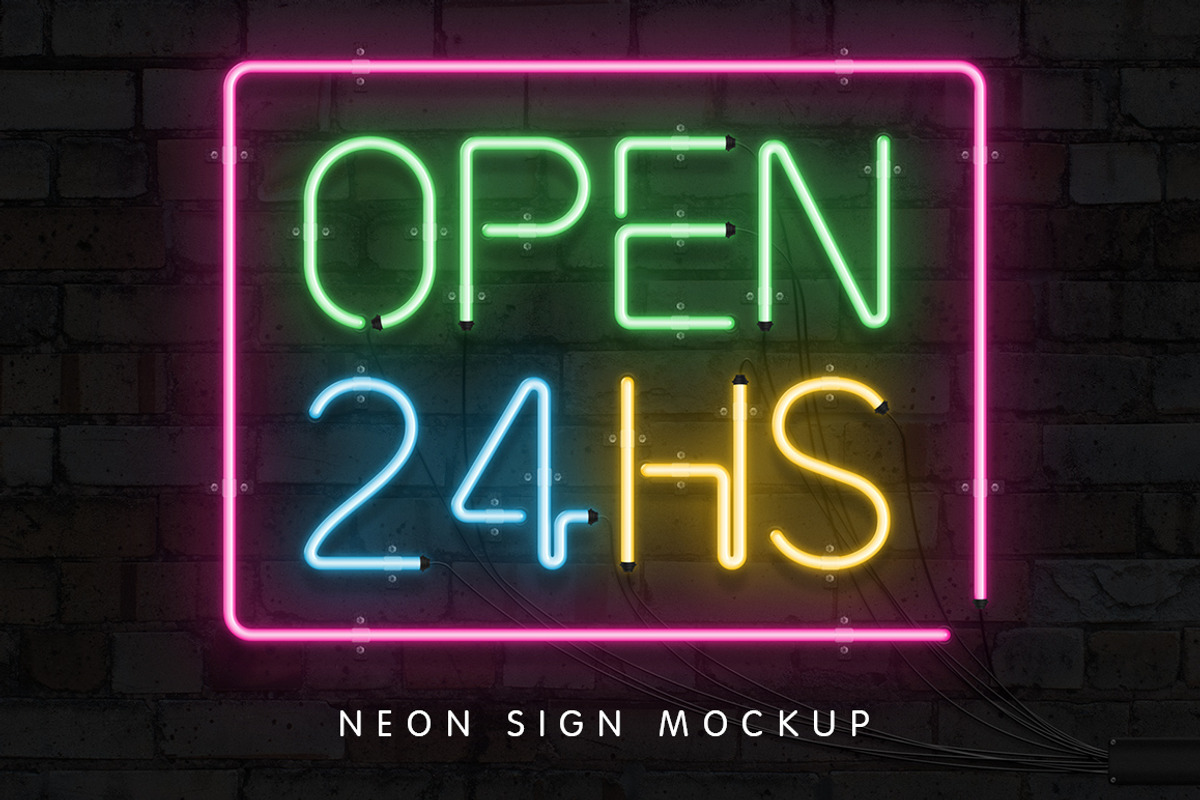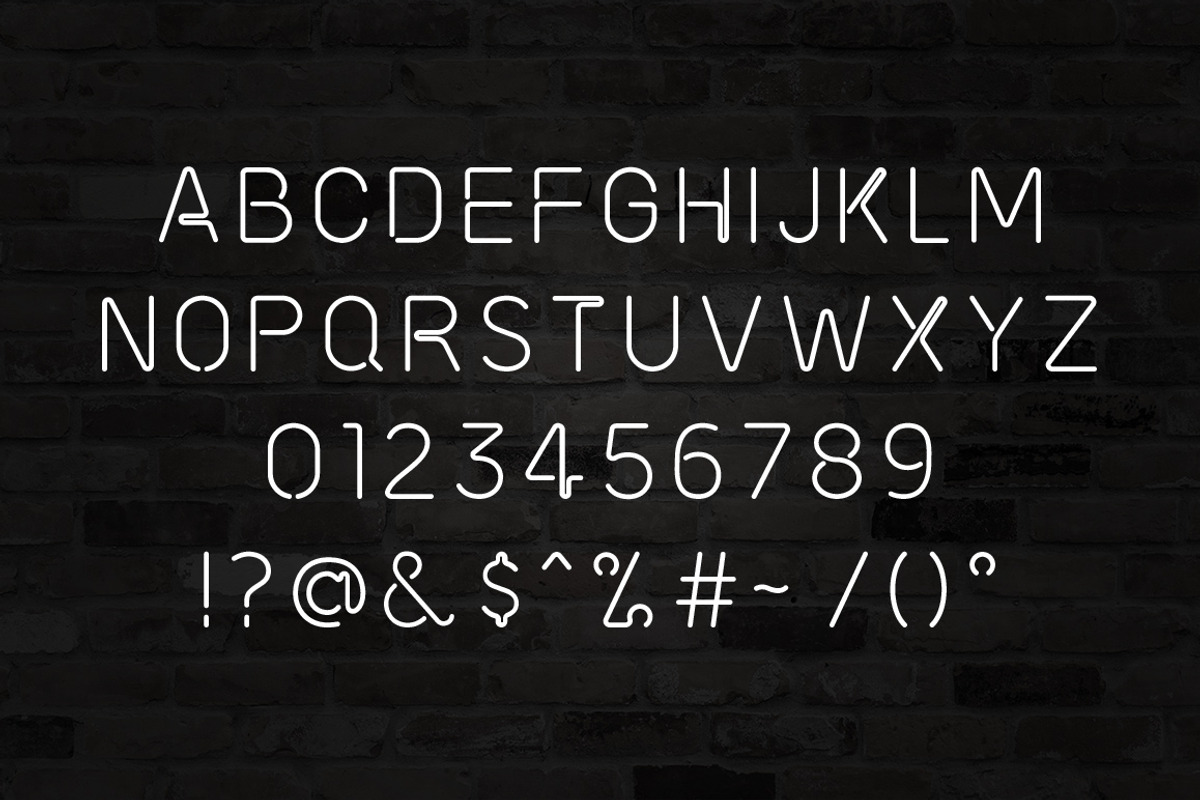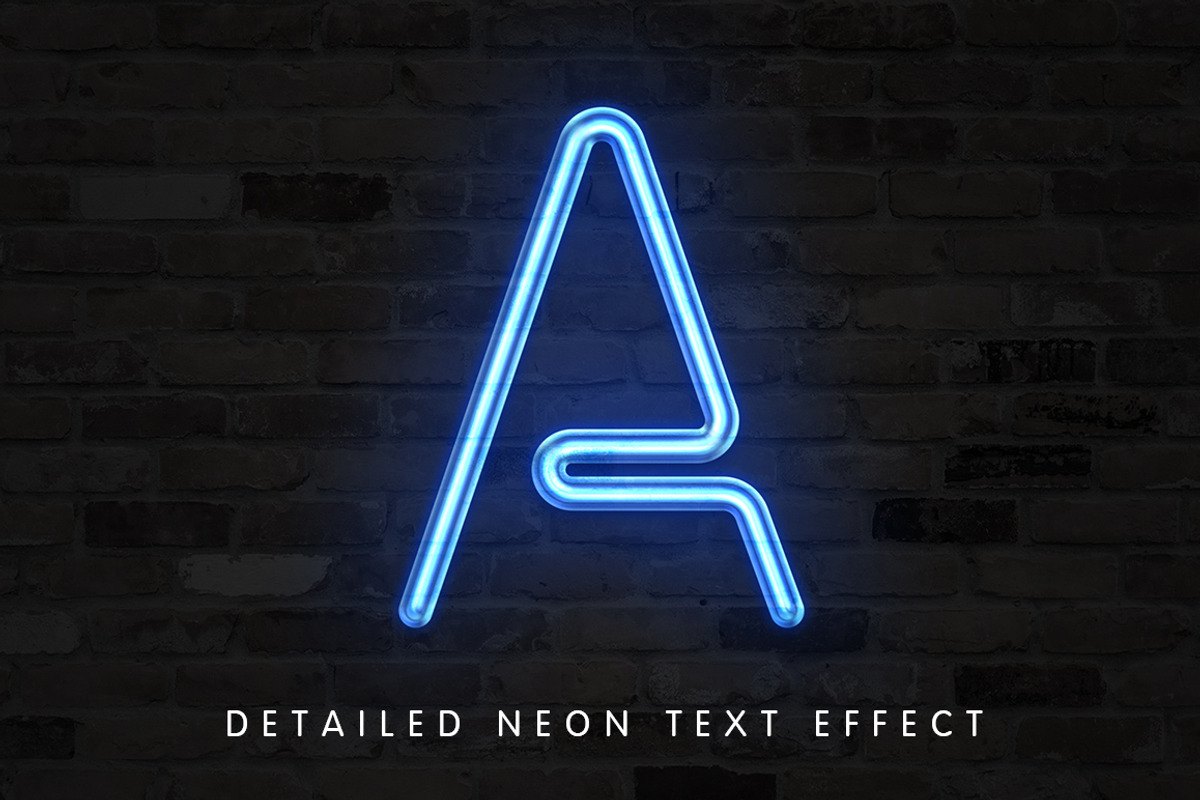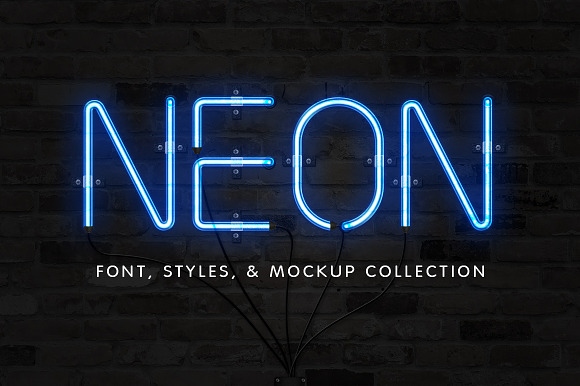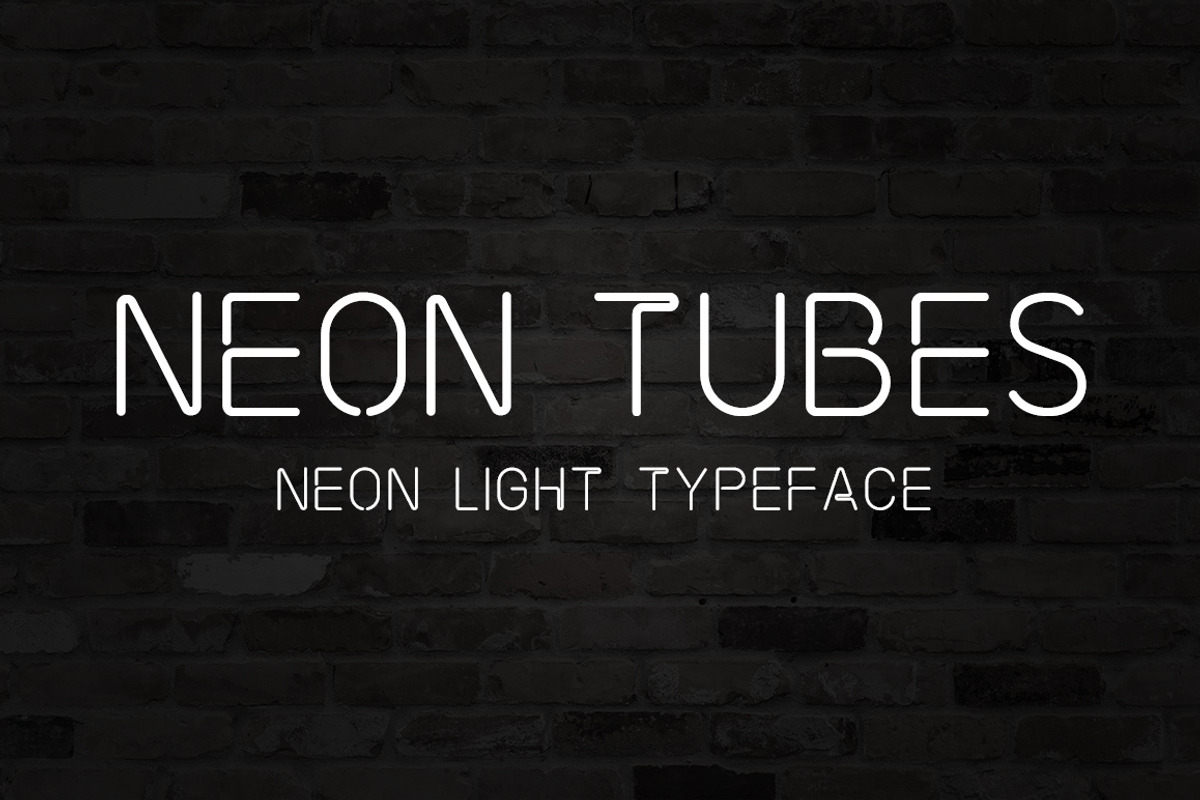
Neon Font & Sign Collection
The Neon Font & Sign Collection contains everything you need to start creating beautiful neon lettering for any situation. The base of the whole collection is Neon Tubes, our bestselling neon font here on Creative Market. In addition to the font we have a highly detailed neon text effect, a neon sign mockup with additional connectors and cables etc. and finally 24 quick and easy to use neon Photoshop layer styles.
Neon Tubes is a new neon sign font inspired by real world signs. It uses minimal letter forms with smooth rounded corners and, true to real signs, only uses lines with open start and end points. This neon font is perfect for adding your own glowing light effects in html/css or can be used to actually design real world signage.
This Photoshop file contains individual letters and numbers with a highly detailed, realistic neon effect applied. Use this kit to build your own glowing neon signs. Colors can be changed easily on a per letter or number basis, and you can even use gradients for a more dynamic light effect.
Use this mockup for Photoshop to design and showcase your neon sign designs. It includes 'On' and 'Off' states as well as various extra elements such as wires, connectors and wall brackets which can be manually placed on your sign for realism.
- Features uppercase letters, numbers, european characters, accented letters and symbols.
- Compared to free options this premium font is substantially larger and more detailed with hundreds of individual glyphs and ligatures.